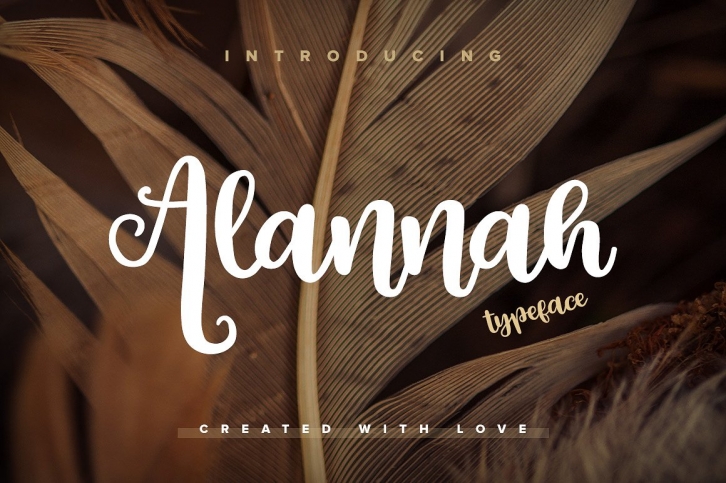
Alannah Script is a gorgeous font that was realeased on March 23, 2018. The font can be used in many style contexts and design environments. Perfect for invitations, magazines, websites, logos, and more! It was designed by Pixelbuddha and the file size is 8.43 MB. Thanks for checking out this font!